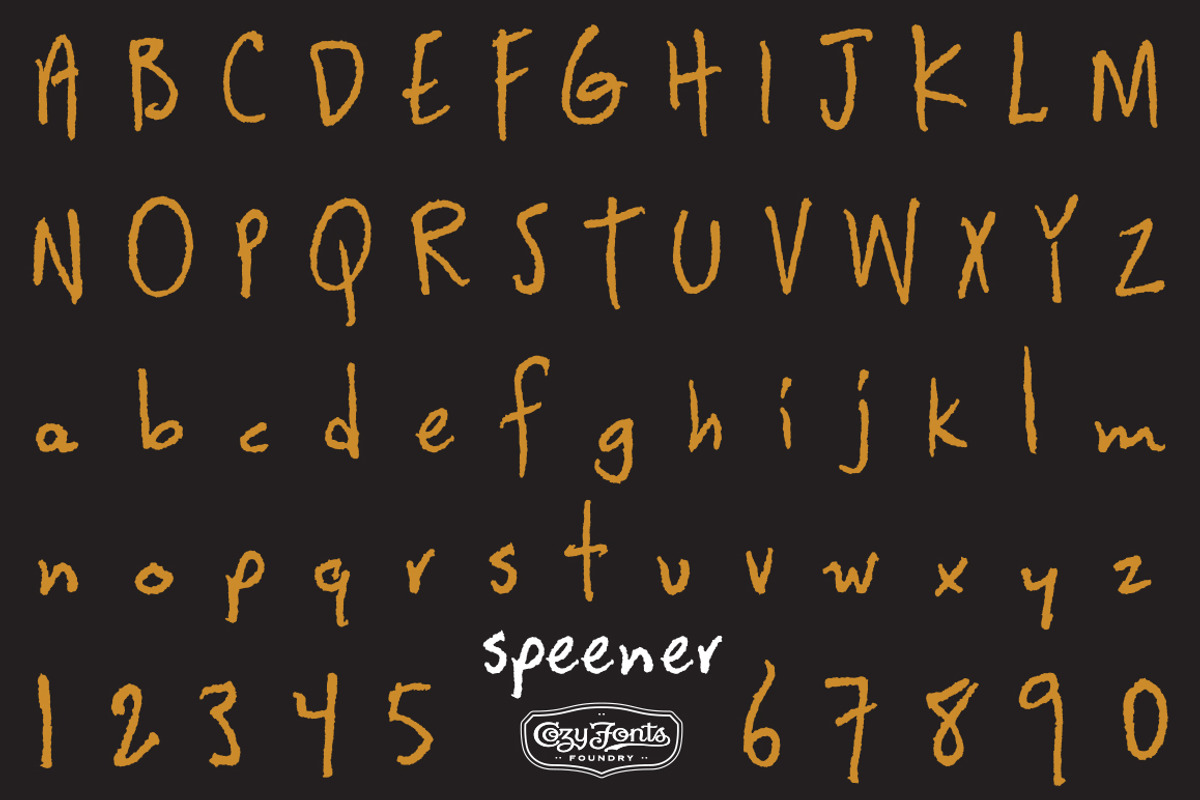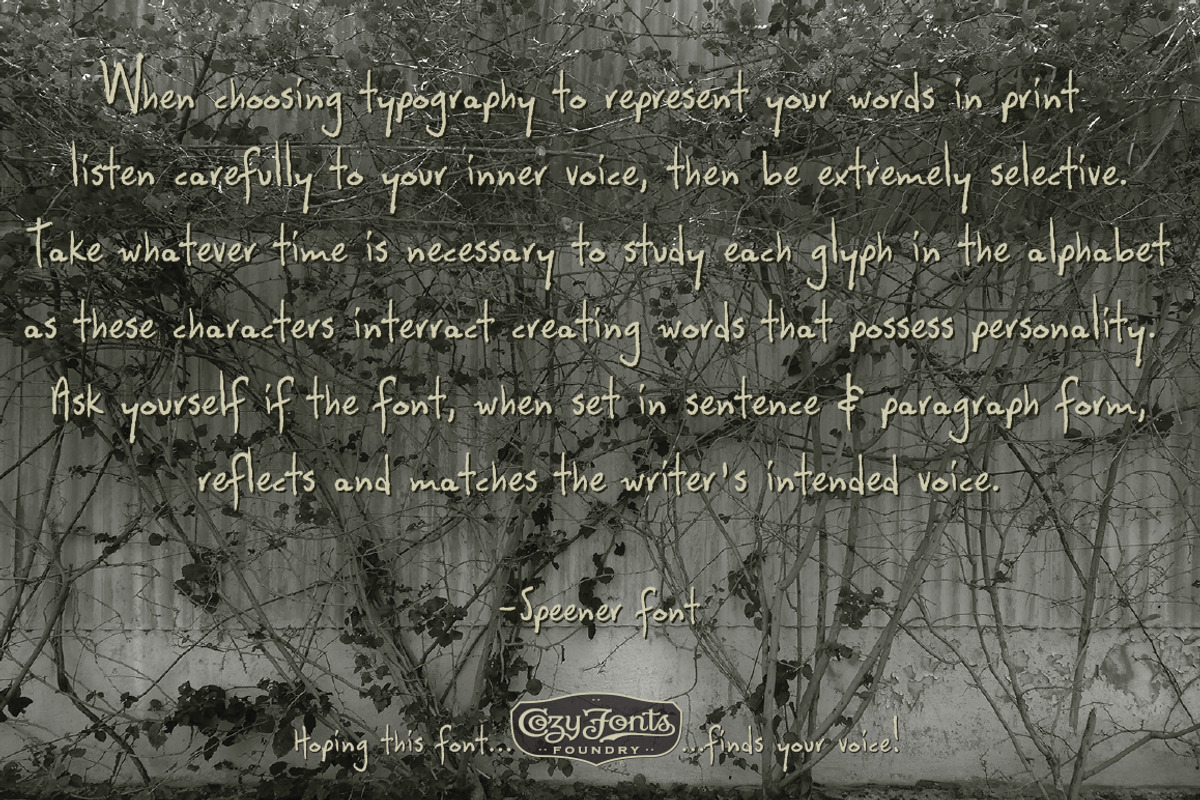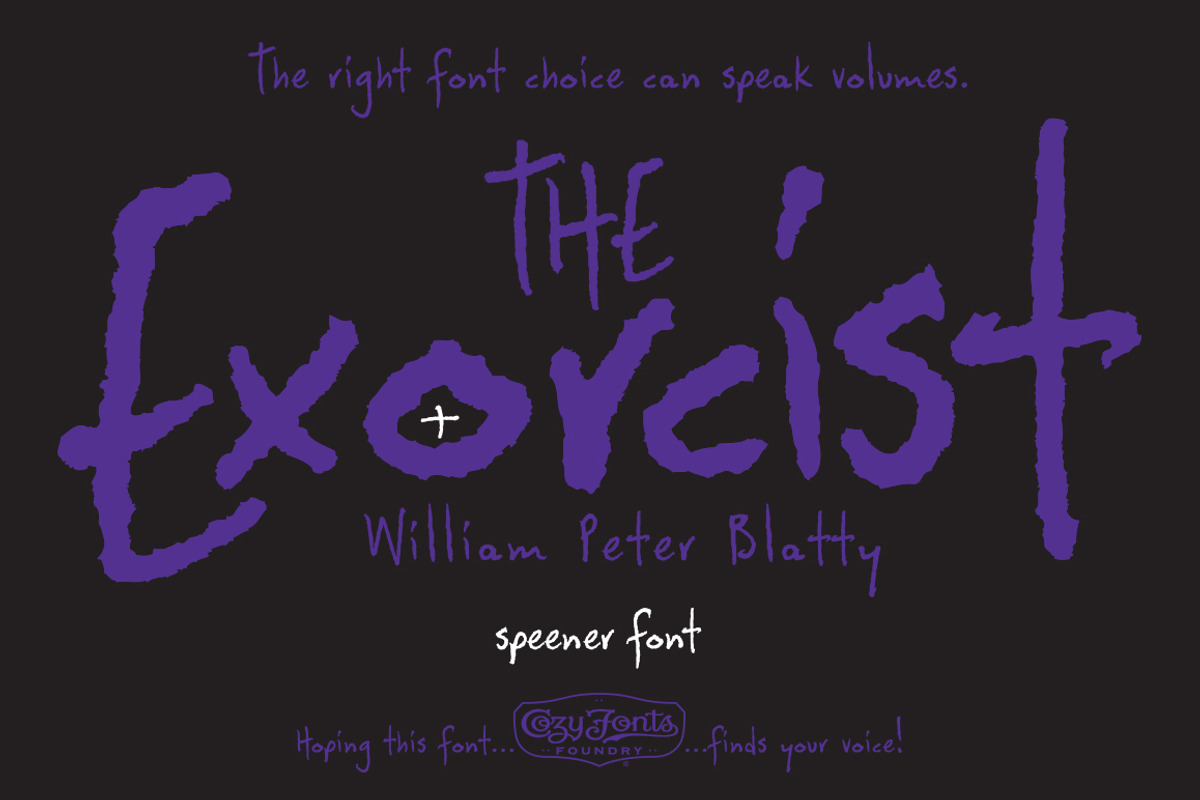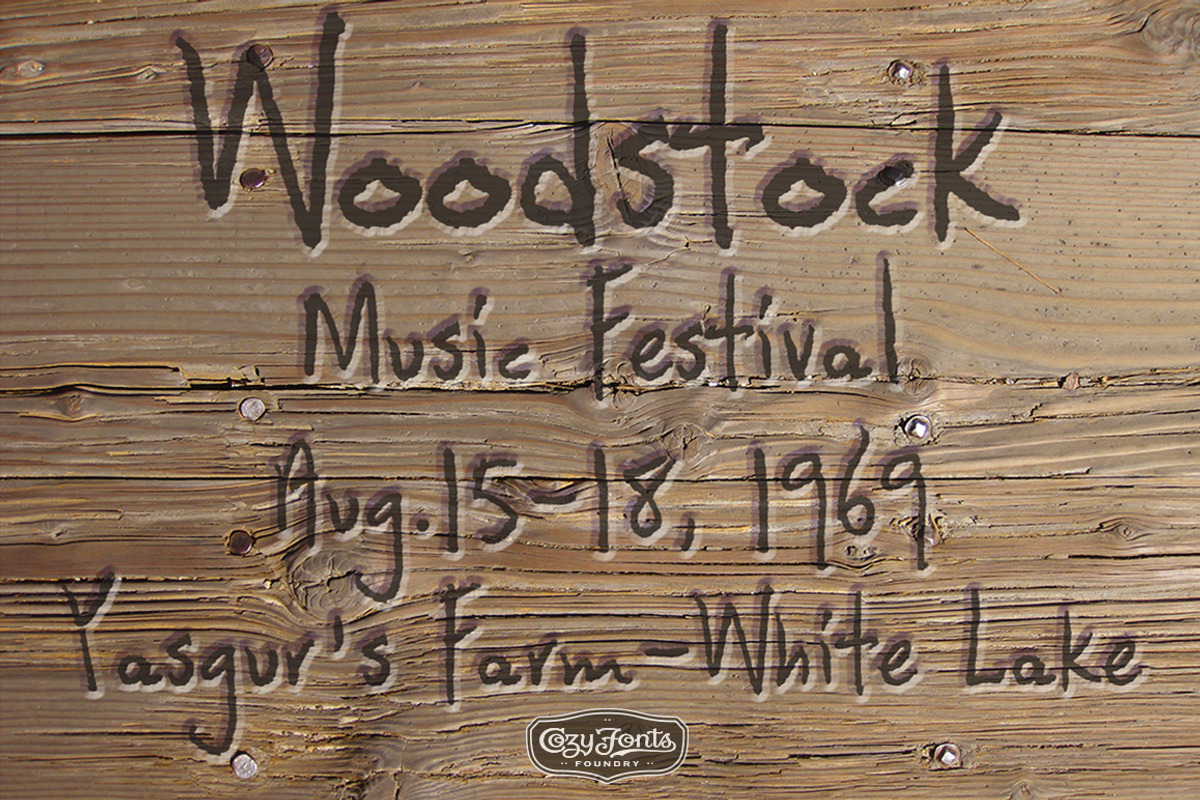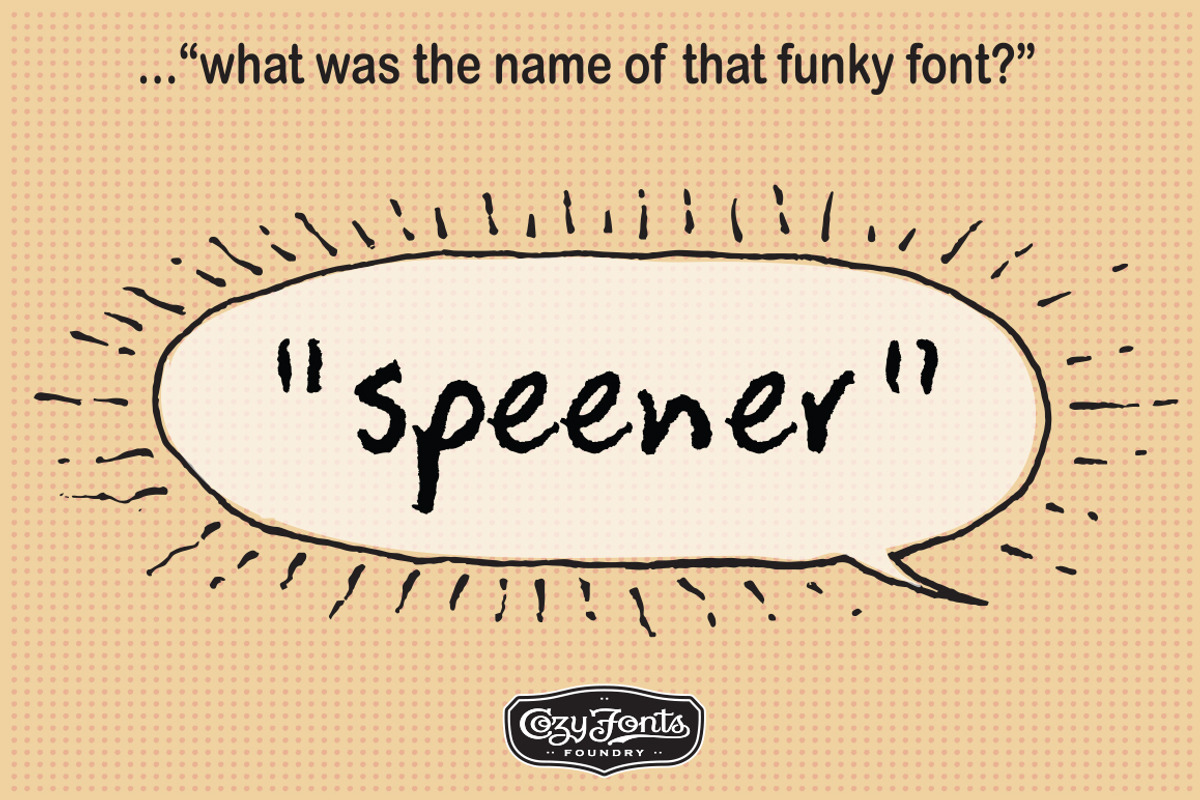
Speener
Speener is based on my son Spencer's printing style. It's a tribute to his artistry - check www.Killspencer.com. Speener font is casual, humorous, cartoony, gritty, groovy, irreverent, lyrical, pitted, worn, carve-etched, weathered and handcrafted!